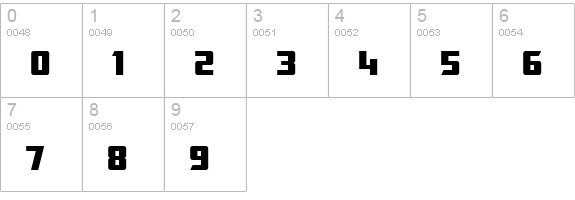
Introducing TransRobotics, a futuristic and cutting-edge font that will transport your designs into the realm of technology and innovation. This font embodies the perfect balance between sleek, modern aesthetics and the mechanical precision of robotics, making it the ideal choice for projects that require a bold and futuristic touch. With its sharp and angular letterforms, TransRobotics captures the essence of a world where machines and humans coexist harmoniously. Each character is meticulously crafted to represent the precision and efficiency of advanced technology, while still retaining a sense of creativity and artistic flair. The versatility of TransRobotics knows no bounds, as it seamlessly adapts to various design needs. Whether you're working on a sci-fi movie poster, a tech startup logo, or a video game interface, this font will elevate your project to new heights. But what sets TransRobotics apart from other fonts is its accessibility. We believe that creativity should be free and readily available to all, which is why TransRobotics is freely available to download at FontsMarket.com. Now, designers from all walks of life can harness the power of this font without any limitations. So, embark on a journey into the realm of technology and innovation with TransRobotics. Let its sleek and futuristic letterforms inspire your creativity and bring your designs to life. Download TransRobotics today and unlock a world of possibilities.